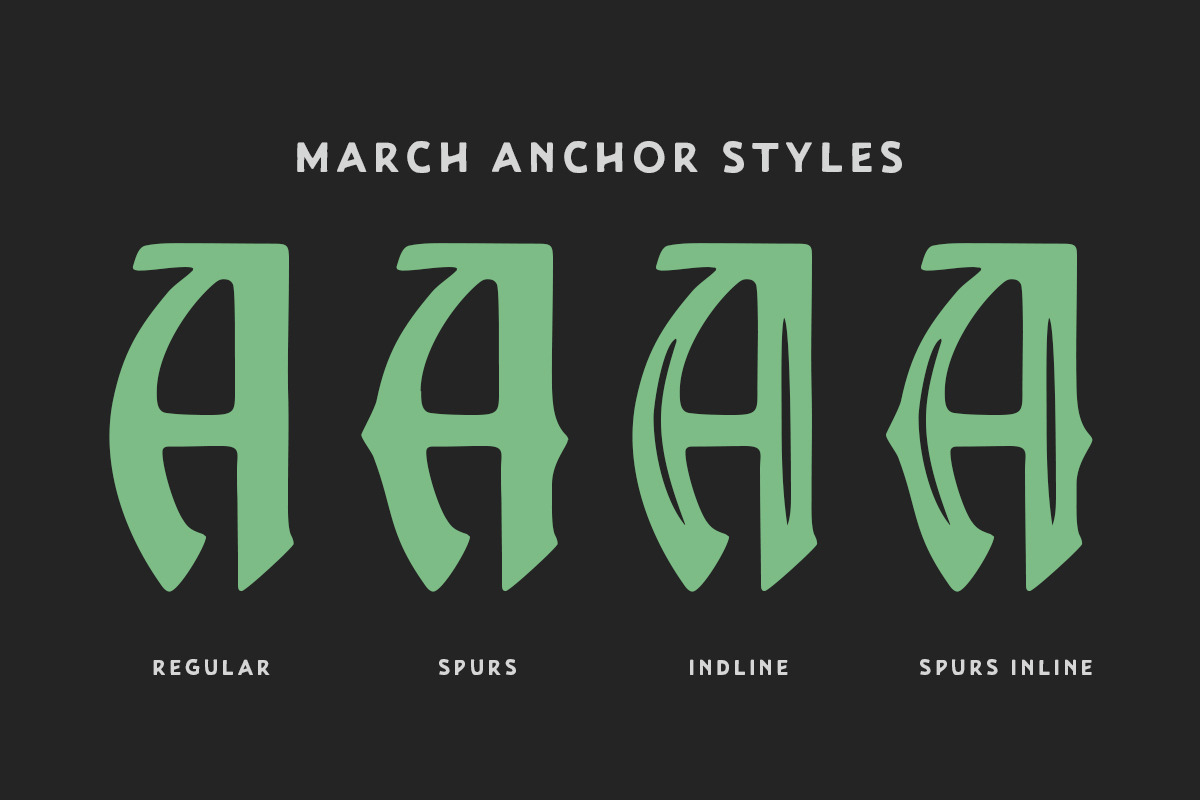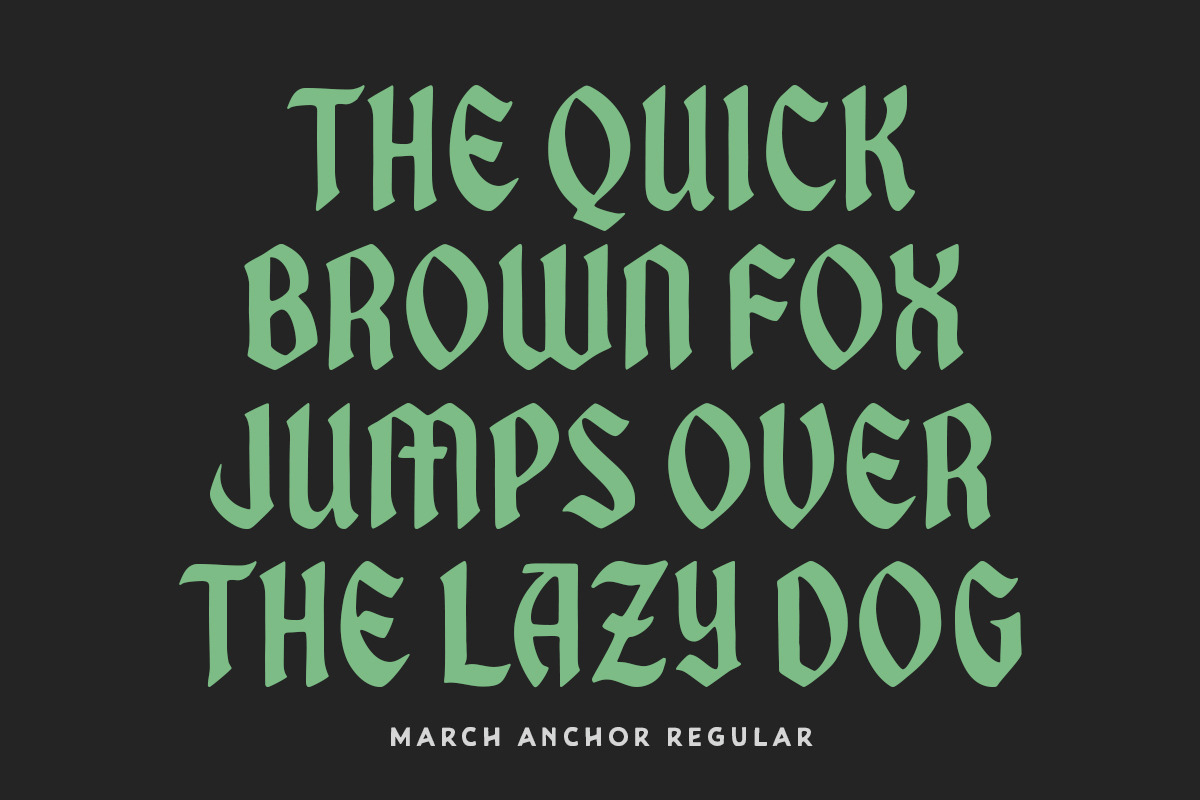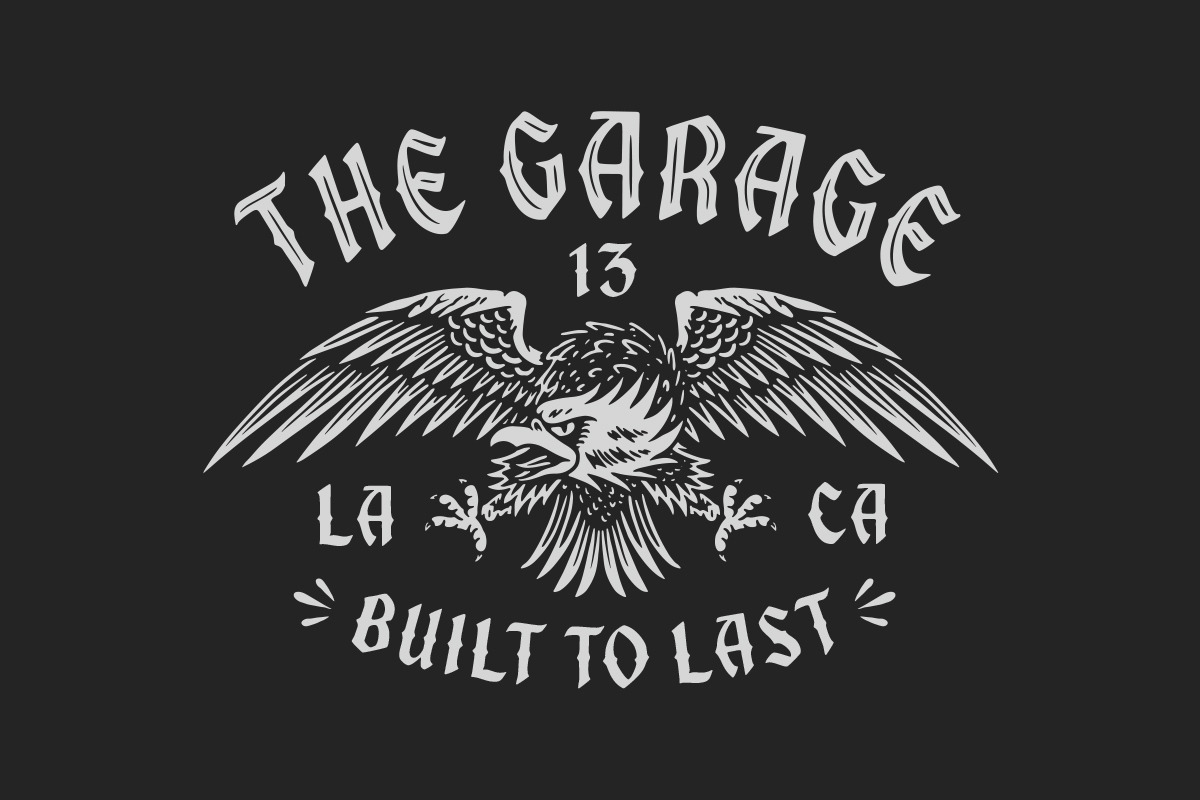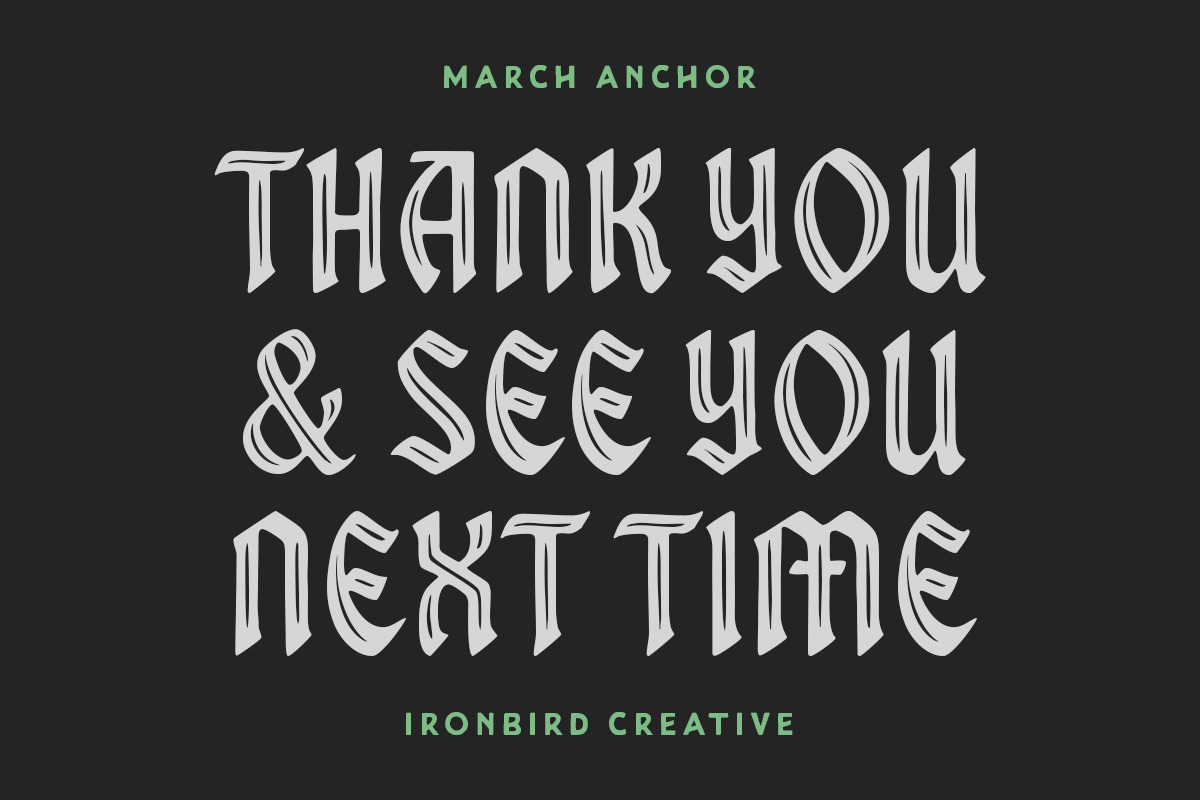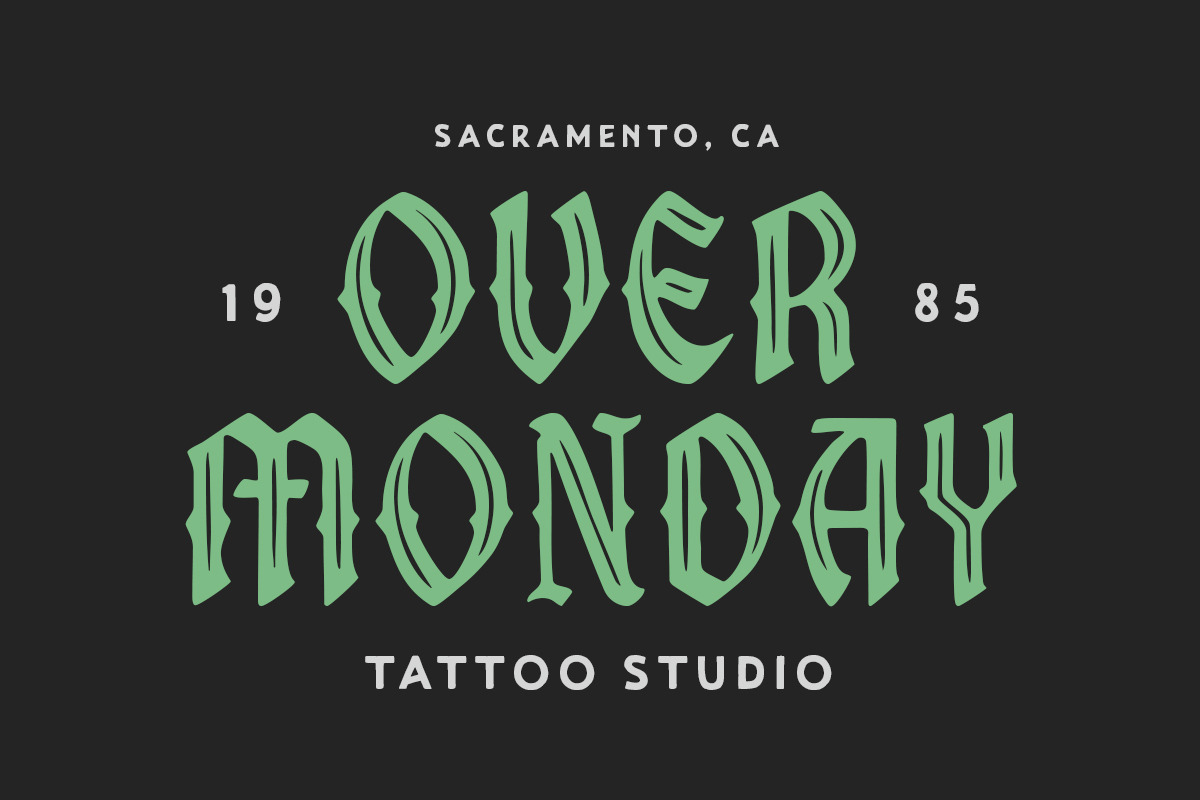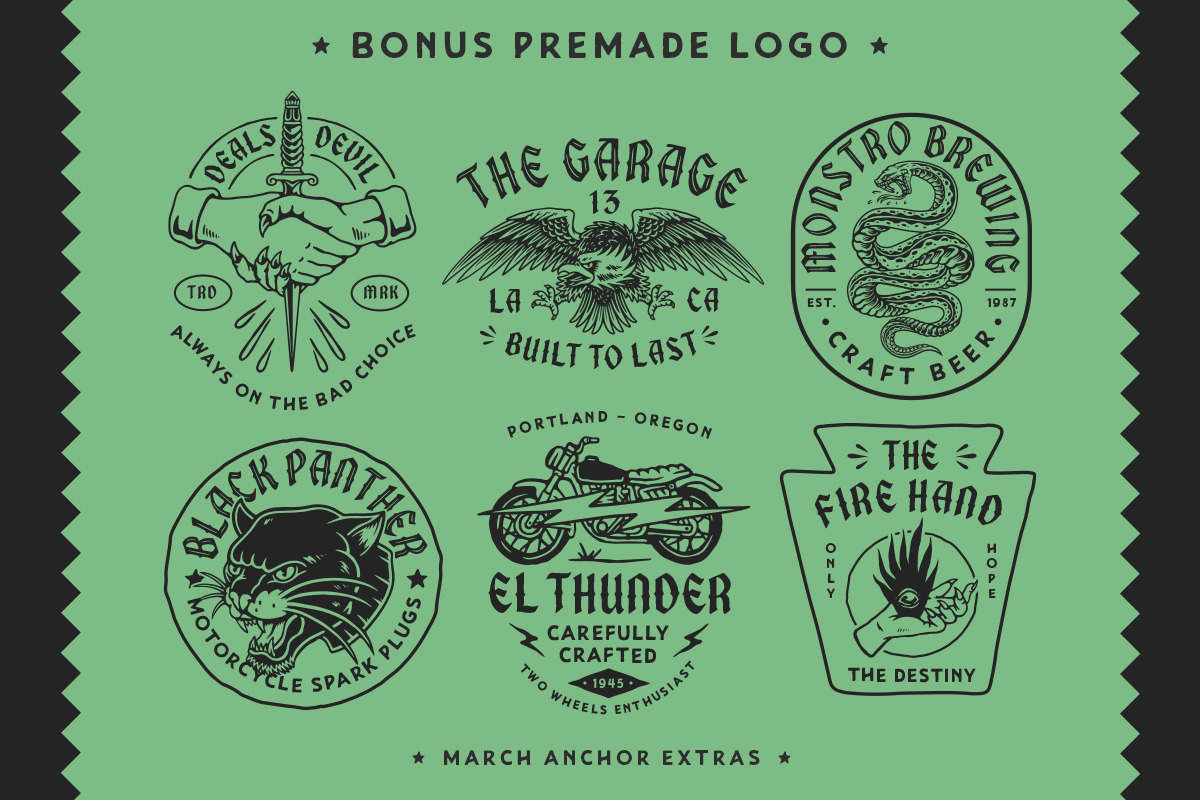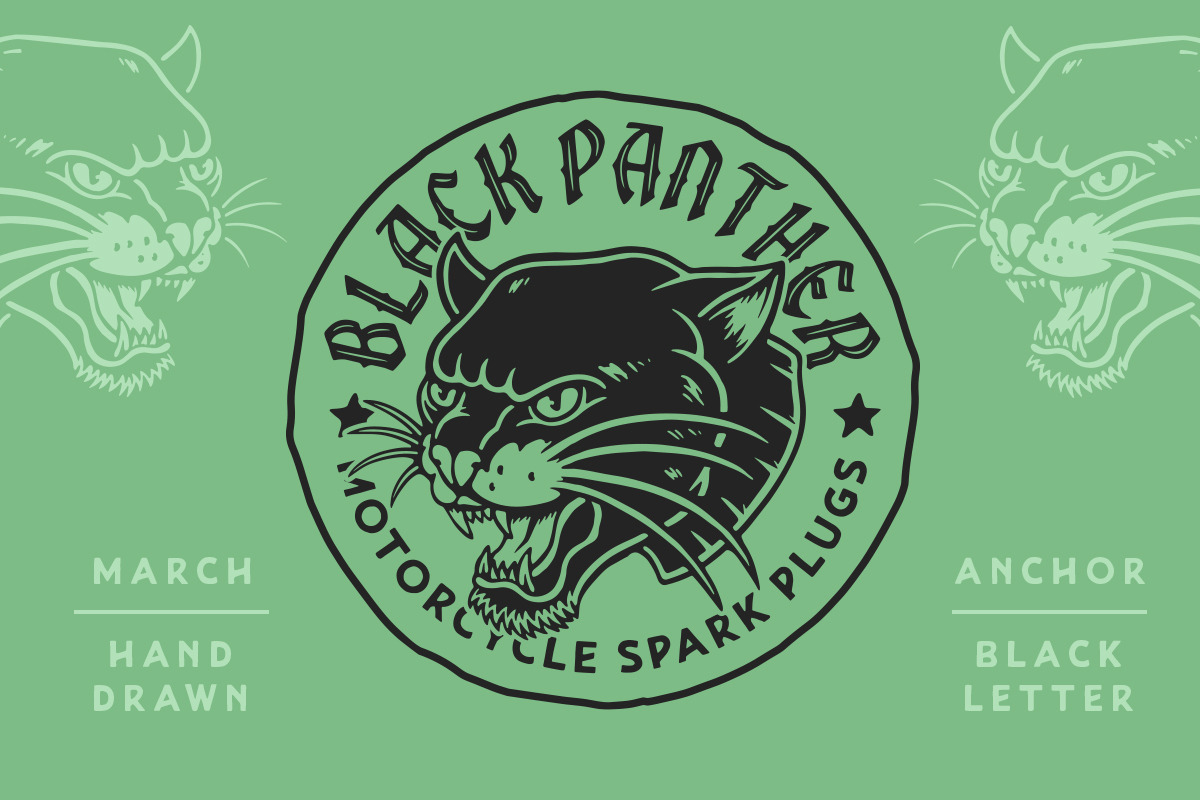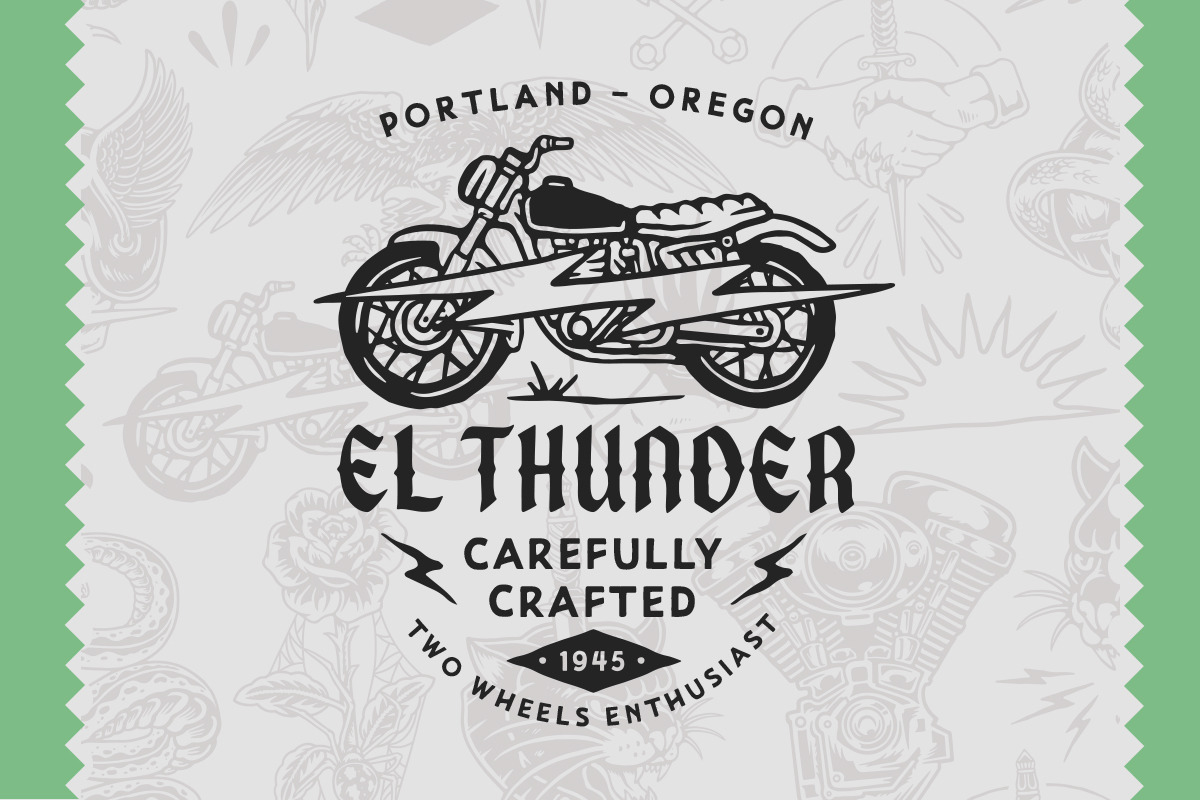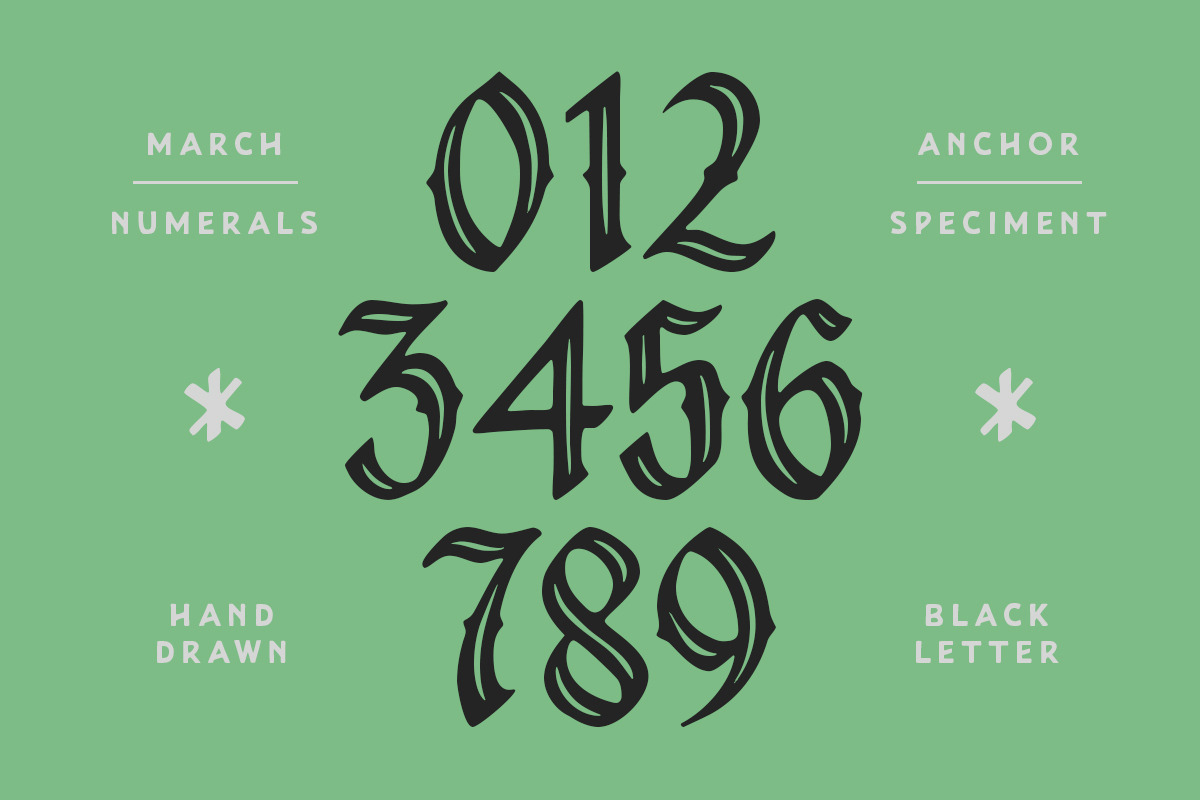
March Anchor & Bonus
March Anchor is a organic blackletter with handdrawn feel. Comes with regular, spurs, inline and inline spurs styles. Also come with FREE illustrations, editable logo and STANLEY UNION SANS to make better design. This typefaces is perfect for people looking for vintage aesthetic and dark feel. Suitable for any graphic designs such as branding materials, t-shirt, print, logo, poster, t-shirt, quotes .etc